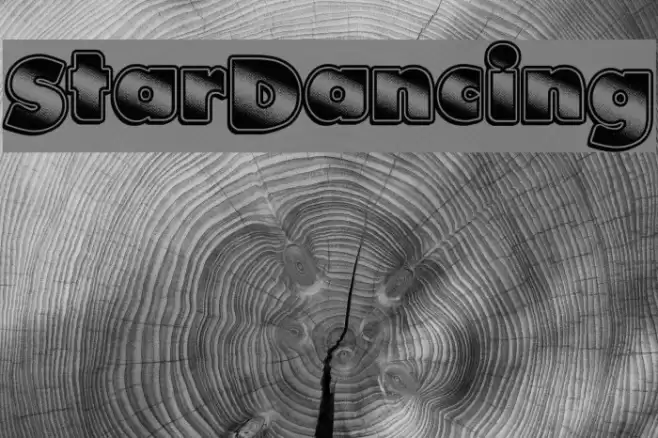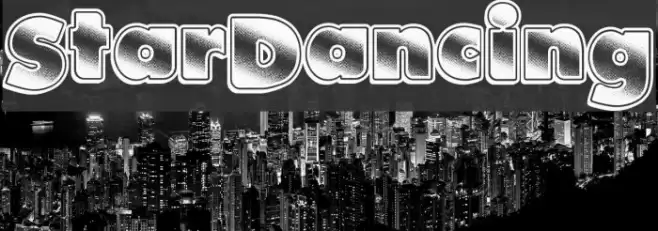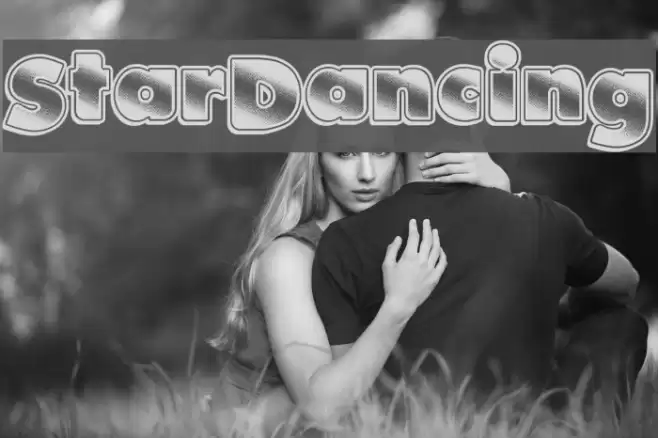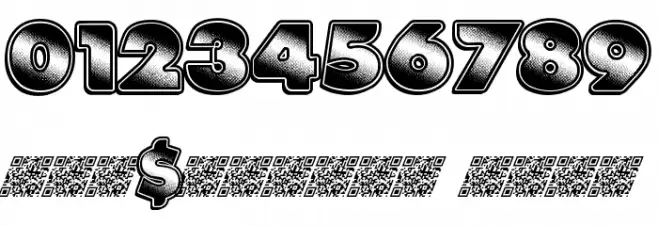
StarDancing Font
StarDancing Description
This font features a bold, decorative style with a unique dotted texture that gives it a dynamic and playful appearance. The letters are heavily outlined, creating a strong visual impact. The uppercase and lowercase letters maintain consistent proportions, ensuring readability while adding a touch of whimsy. The numbers and special characters follow the same design, making them cohesive with the alphabet. This font's distinct style is perfect for projects that require a fun and eye-catching typeface.
A bold, decorative font with a dotted texture and strong outlines from Uncategorized fonts.
- Proposed Projects: Ideal for posters, children's book covers, party invitations, and playful branding.
- Overall Style: Playful, Decorative